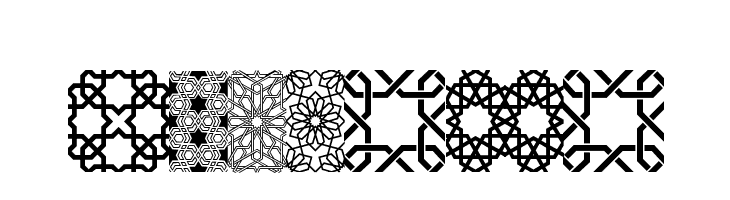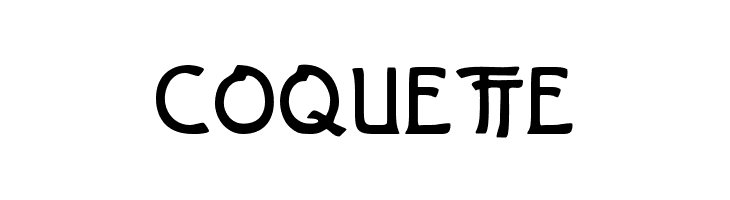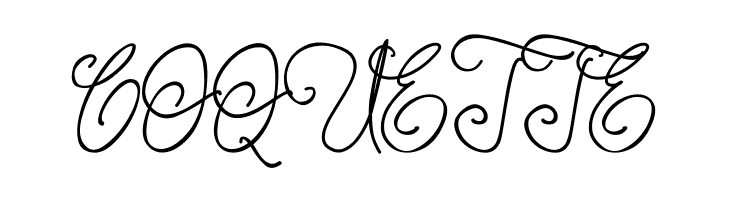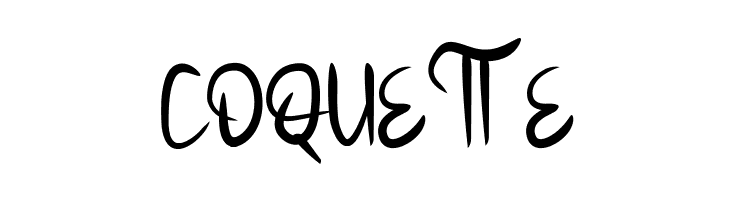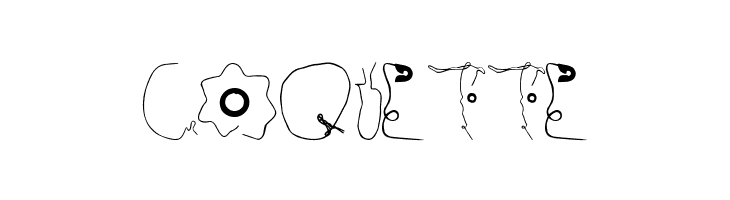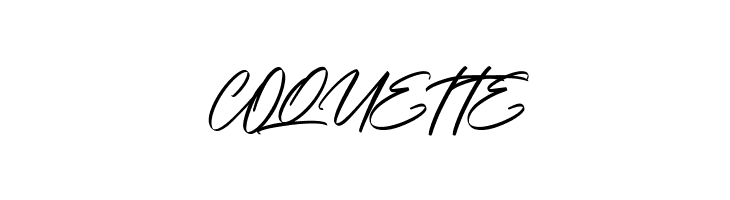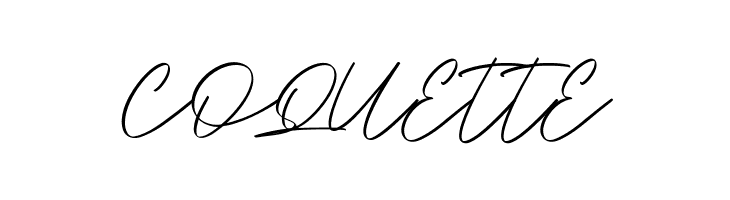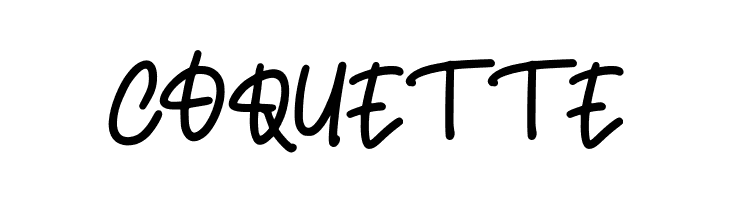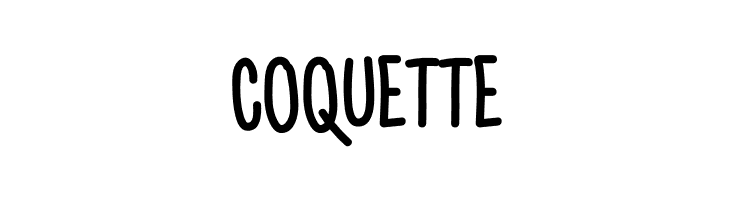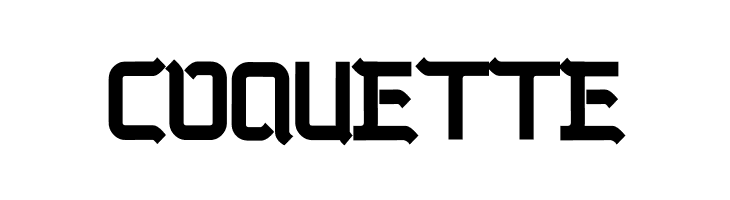
• Krunch Bunch
A bold, brush-style font with dynamic, jagged strokes.
• Kryogenic
A bold, futuristic font with geometric and dynamic design elements.
• Krysttal Spears Free Regular
A flowing, cursive script font with elegant, interconnected characters.
• Kszywometrja
A modern and artistic font with dynamic curves and sharp angles.
• Kubite FREE
A playful, handwritten script font with bold, interconnected letters.
• Kubus-Bold
A geometric, bold font with a modern and architectural style.
• Kubus-Thin
A geometric, minimalist font with thin, linear characters.
• Kuebeg Personal Use
A bold, playful script font with smooth, flowing curves and a handwritten style.
• Kuenstler Grotesk
A playful, hand-drawn style font with dynamic stroke variations.
• Kuficology
A bold, geometric font with a modern, decorative style.
• Kuficology Root
A bold, geometric font with a maze-like, modern design.
• Kuficology Unica
A bold, geometric font inspired by Kufic script with a modern, digital twist.
• KufiPattern
Ornamental geometric font with Islamic art influences.
• KufiPattern
Ornamental geometric font with Islamic art influences.
• Kulo Free Version
A playful, handwritten font with rounded, casual letterforms.
• Kurvaceous NF
A bold, playful font with geometric shapes and rounded curves.
• KurvaceousNF
A bold, playful font with curvy and sharp elements, perfect for creative projects.
• Kurzwaren
• kuwa ronmcie q
A modern, futuristic font with rounded, geometric shapes and mirrored elements.
• Kwadryga
• Kwekel
A playful and whimsical font with decorative curls and swirls.